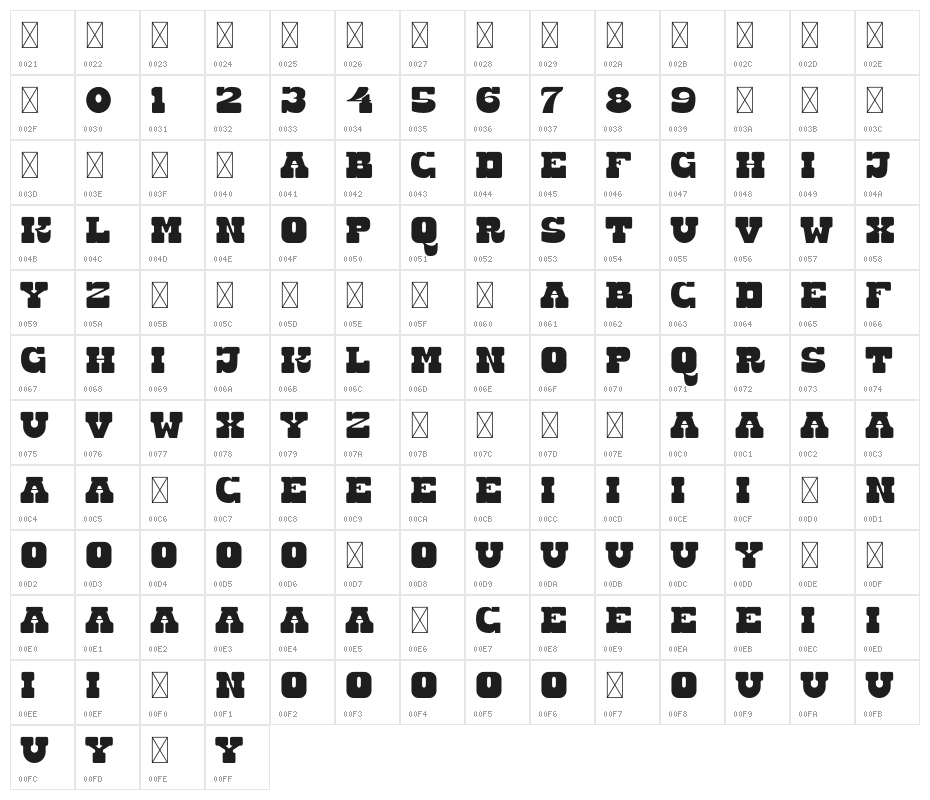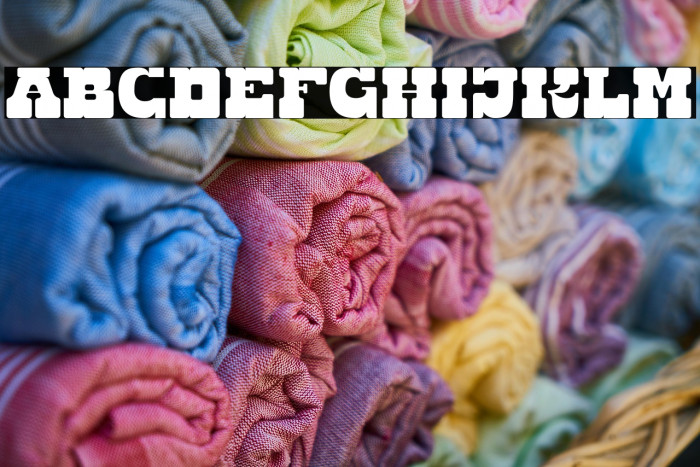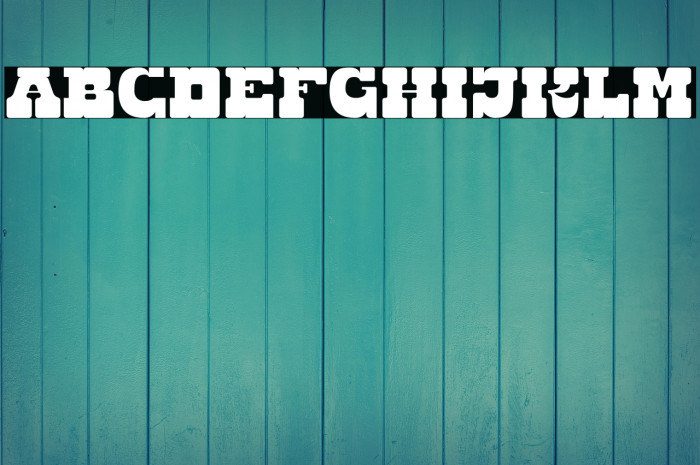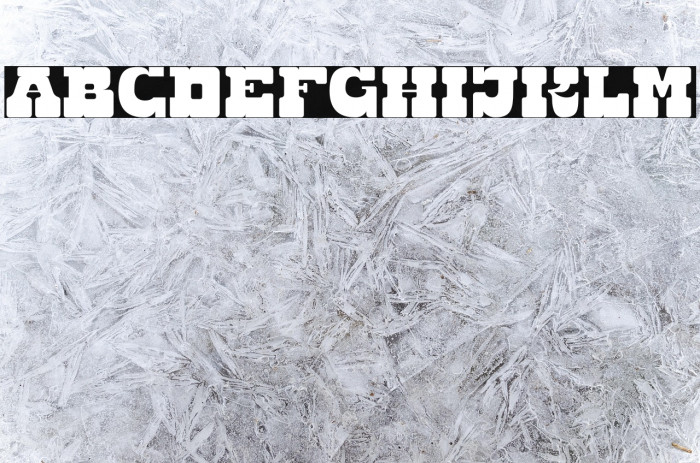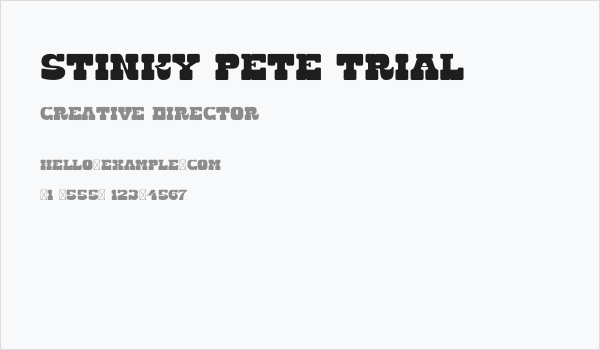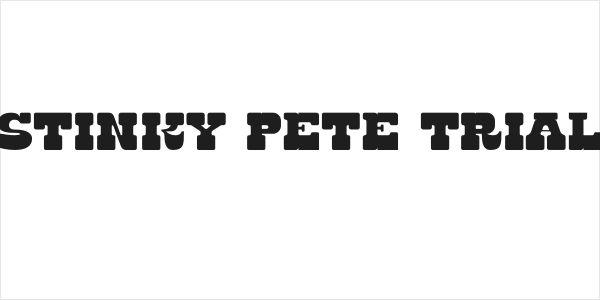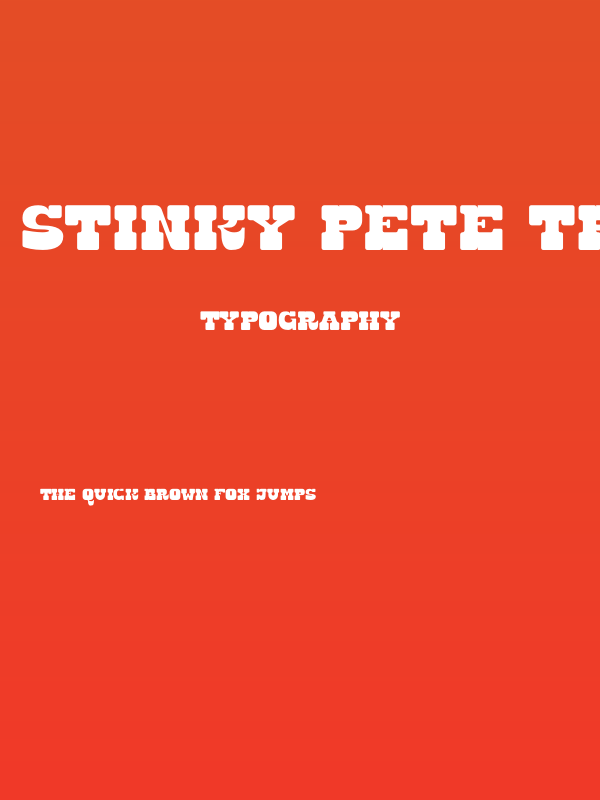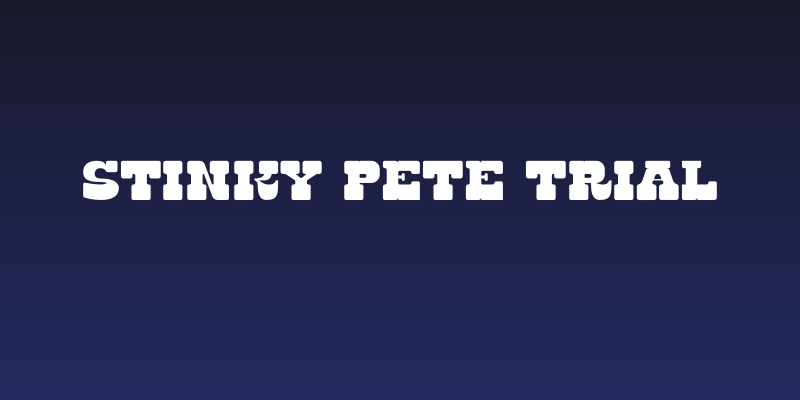
Stinky Pete Trial Font
Stinky Pete Trial Description
This font features a bold, robust design with thick, blocky characters that convey a sense of strength and stability. The uppercase letters are uniform in height, with a consistent width that gives the font a monospaced appearance. The numbers follow the same bold style, ensuring readability and impact. The absence of lowercase letters and special characters suggests a focus on simplicity and clarity. The font's heavy weight and solid structure make it ideal for attention-grabbing headlines and signage.